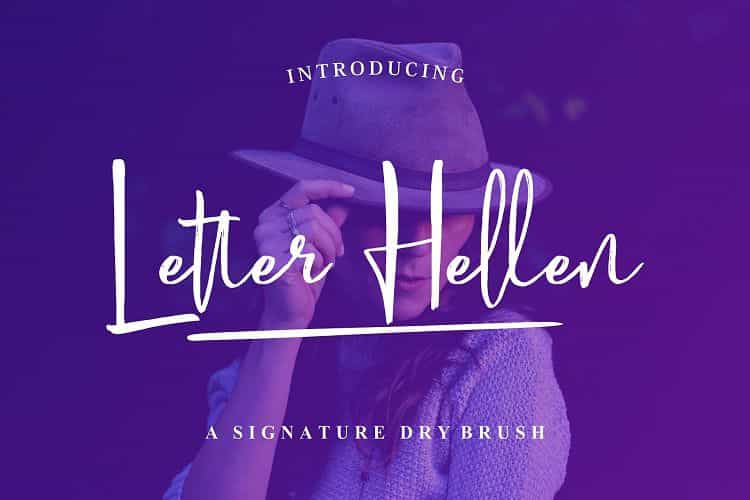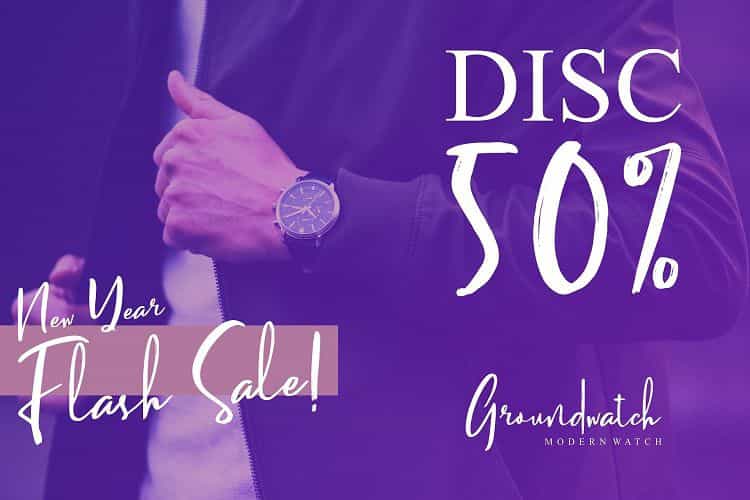
Introducing Letter Hellen Font. Letter Hellen – a new signature dry brush with elegant lines that makes this font perfect for imaging your personal brand and every great project, such as: logos, invitations, stationery, wedding designs, social media posts, advertisements and product packaging are among the things that can be designed using Adobe Illustrator.